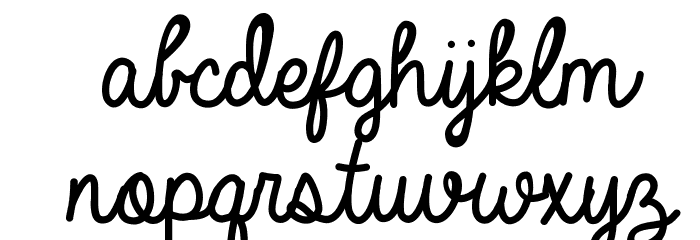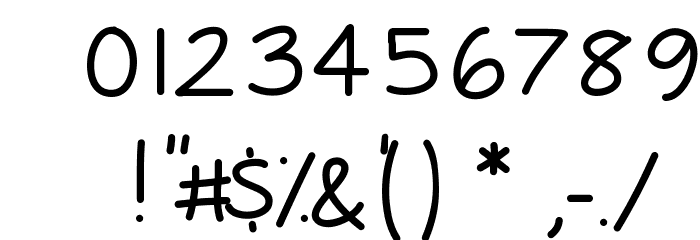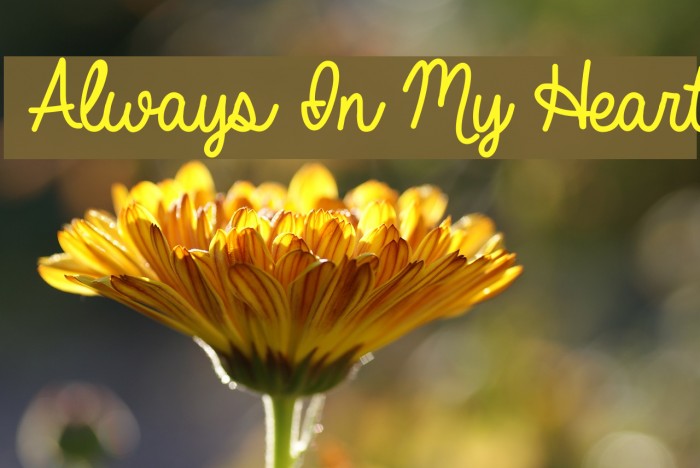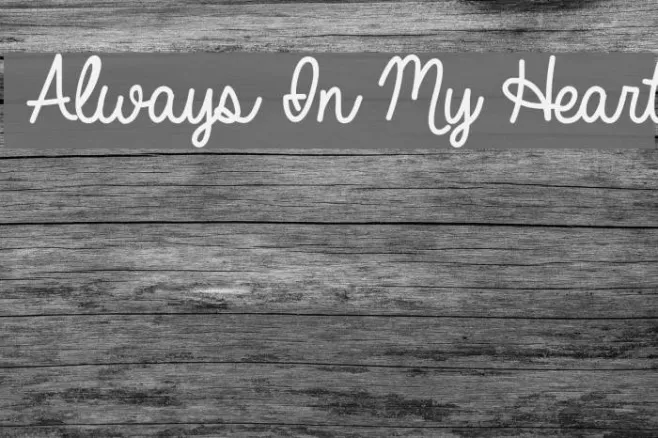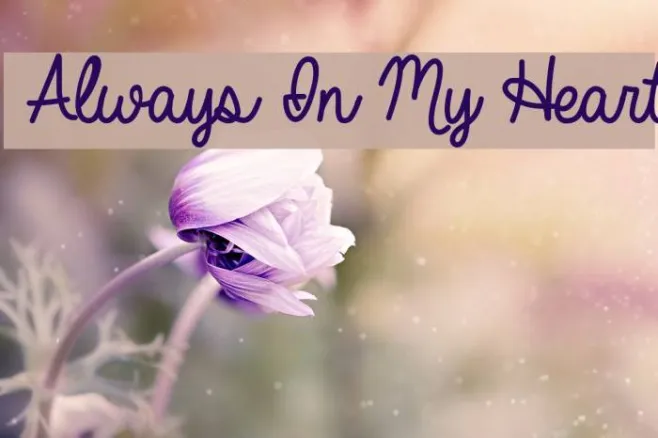
Always In My Heart Font
This font features a playful and flowing script style, characterized by its smooth, rounded curves and consistent stroke width. The uppercase letters are slightly larger and more pronounced, while the lowercase letters maintain a cohesive flow, making it ideal for creating a friendly and approachable aesthetic. The numerals and special characters are designed to match the overall style, ensuring uniformity across all text. The font's casual elegance makes it suitable for a variety of creative projects.
A playful and flowing script font with smooth, rounded curves.
- Proposed Projects: Ideal for greeting cards, invitations, personal branding, and social media graphics.
- Category: Script
- Overall Style: Casual
- Use Case: Logos, Invitations, Social Media